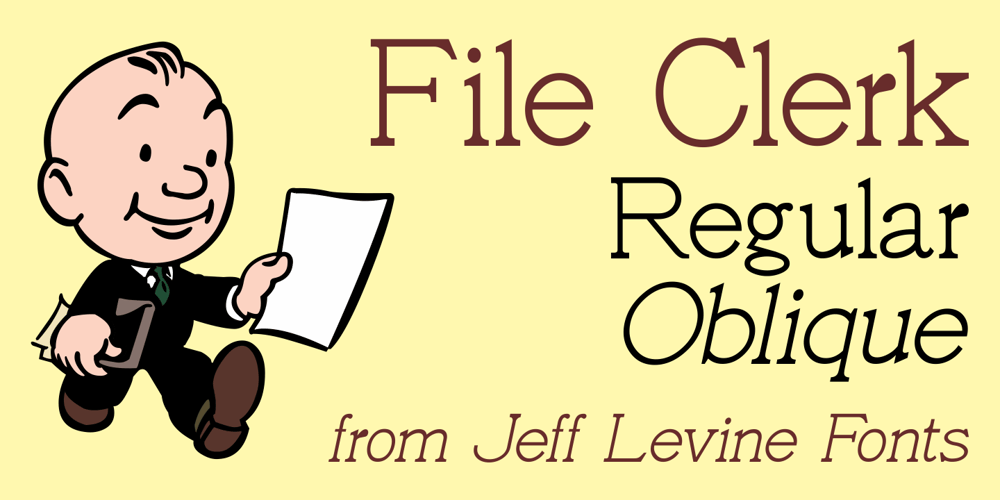
File Clerk JNL Font Family was designed by Jeff Levine and published by Jeff Levine. File Clerk JNL contains 2 styles and family package options. File Clerk JNL was based on Cushing, a typeface found within the pages of the 1901-02 Pettingill & Co. (Boston) specimen book, and is available in both regular and oblique versions.